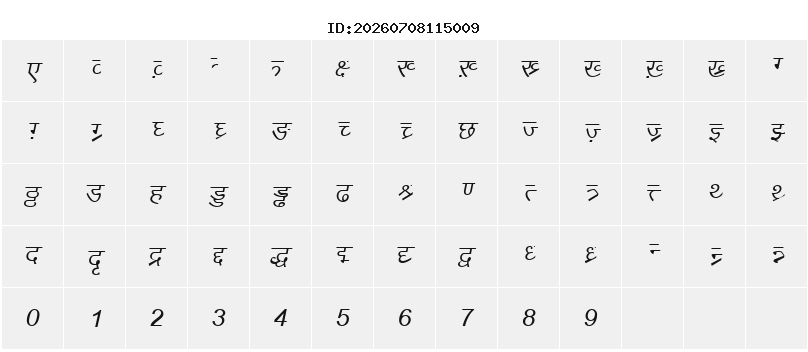
DV_Divyae Preview
• Font Name: DV_Divyae
• Font ID: Alts:DV_Divya Italic
• Full Font Name: DV_Divyae Italic
• Version: 1.0 Sun Feb 18 18:44:22 1996
• PostScript Name: DV_Divya-Italic
• Character Count: 213
About DV_Divyae.ttf
DV_Divyae.ttf is a modern, elegant sans-serif font designed for ultimate readability and visual harmony. Perfect for branding, headlines, web design, and print materials.